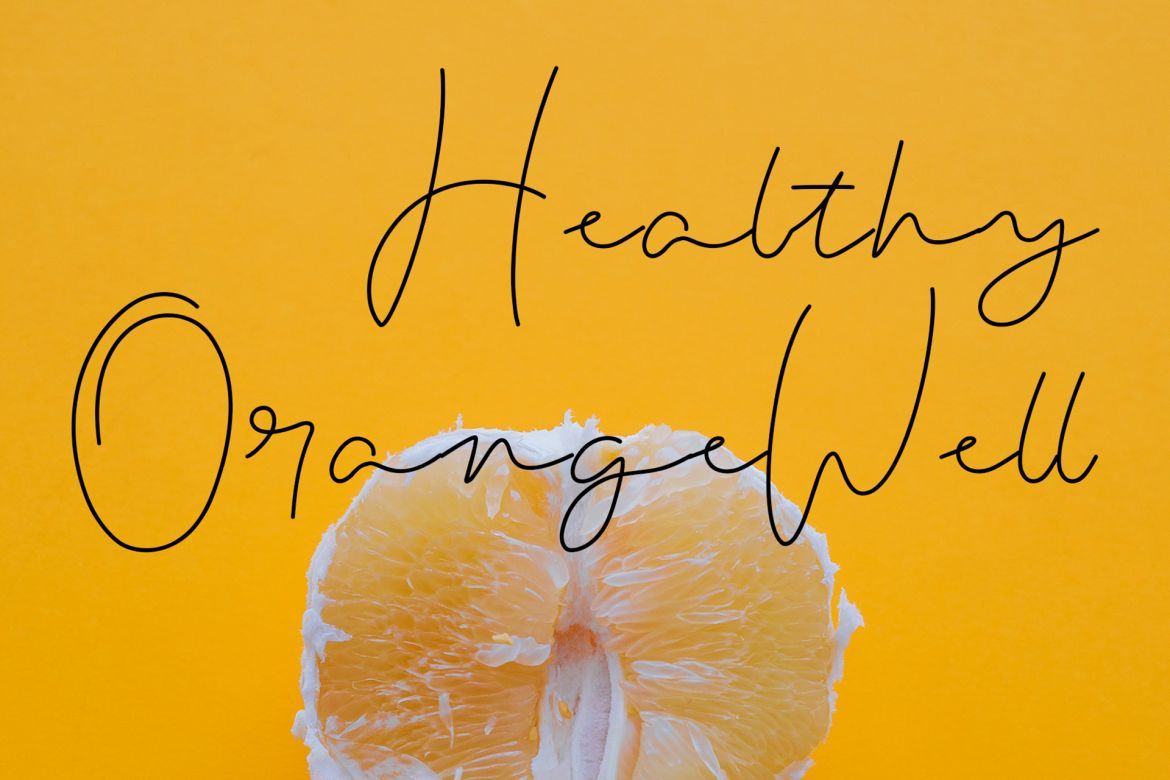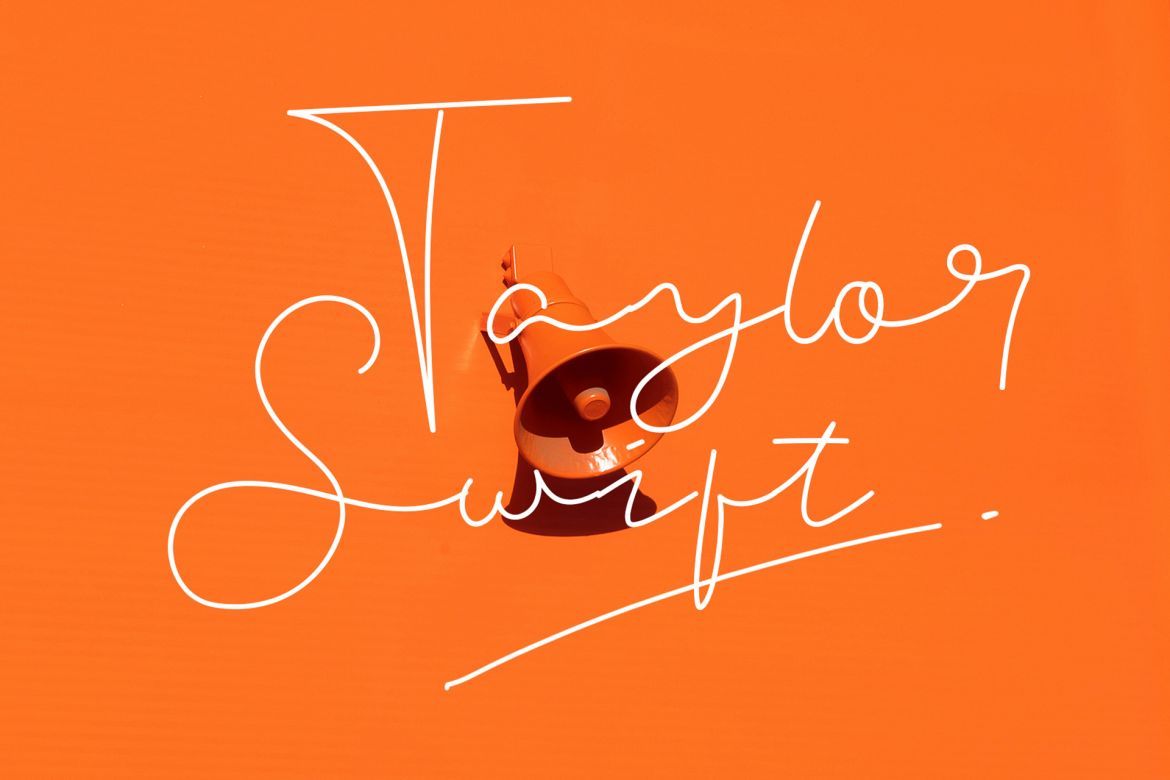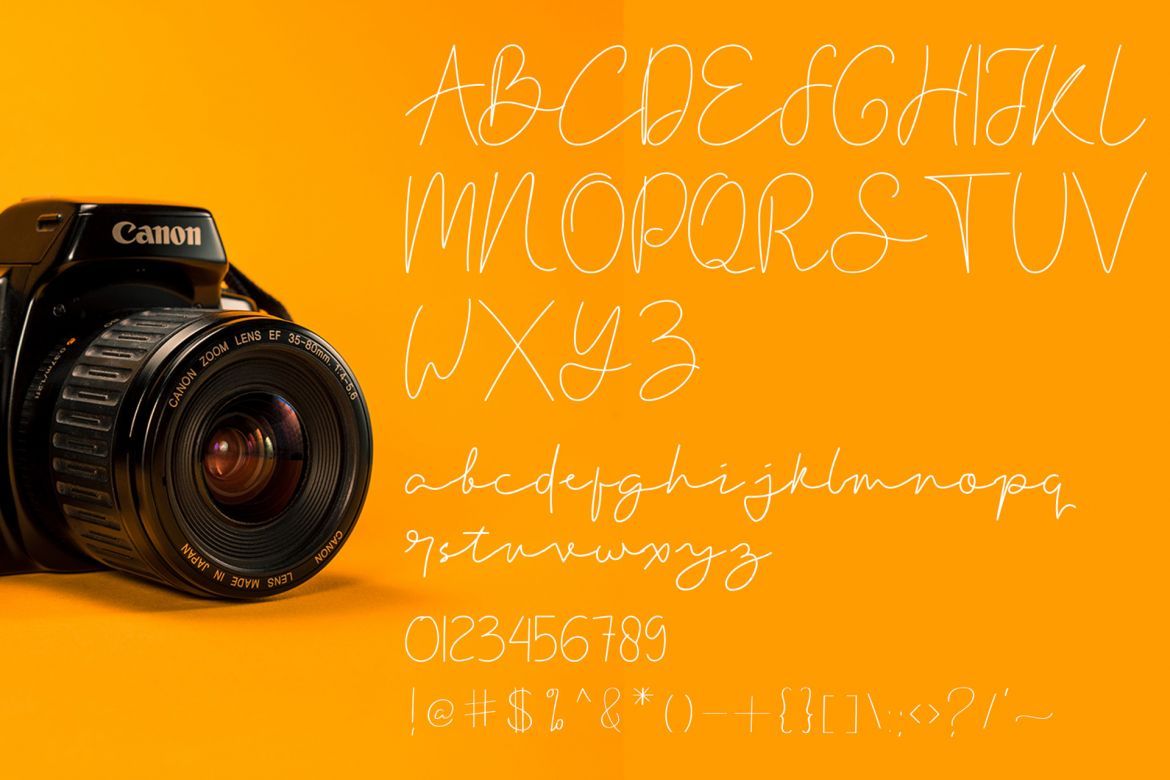
Markwell Signature Font
Hello there, here is a signature font, it's perfect for you to give your design an elegance style. This is an original hand writing font, perfect for give your design an authentic touch.
• original hand writting font
• prefect for signature design or slogan